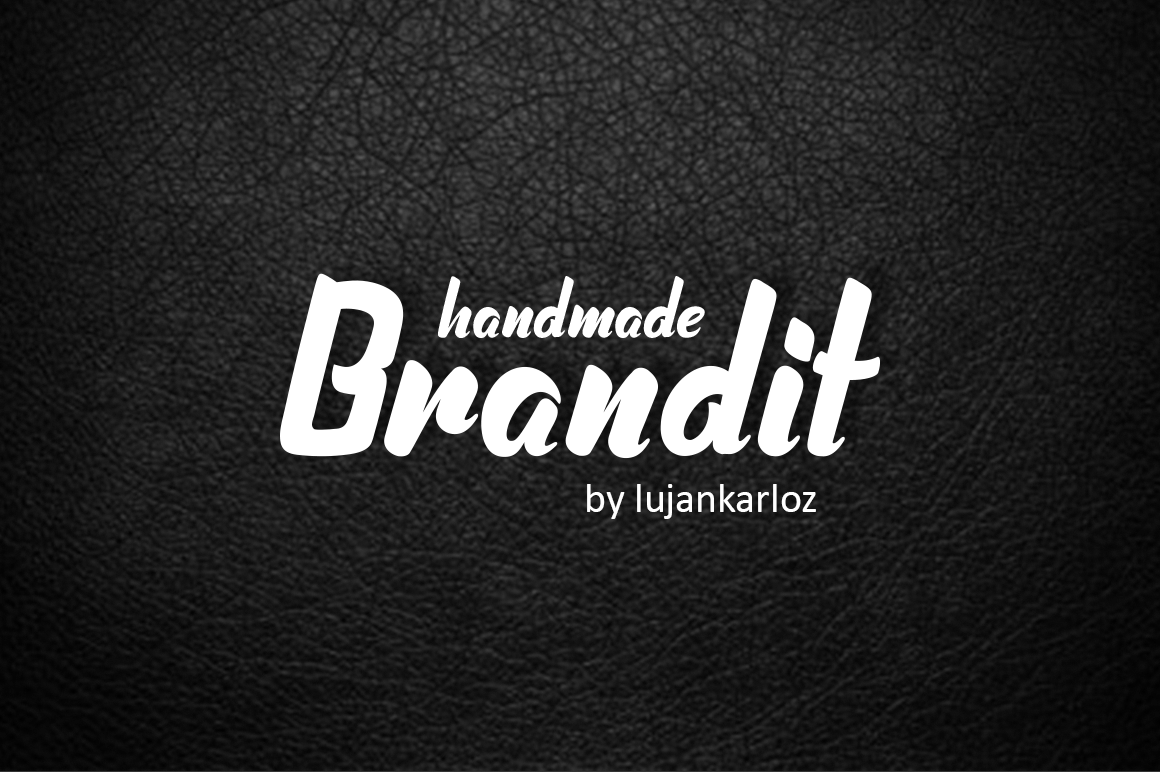
Brandit - Typeface
Brandit - Typeface is a handmade font created with a tombow brush pen and then cleaned and vectorized. The idea was to create a font face that can easily create a logotype look and that can be easily place on any product lines.